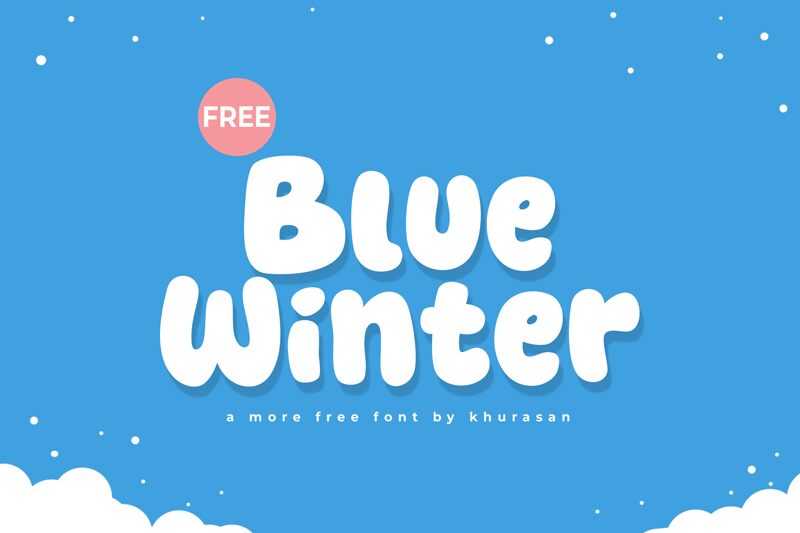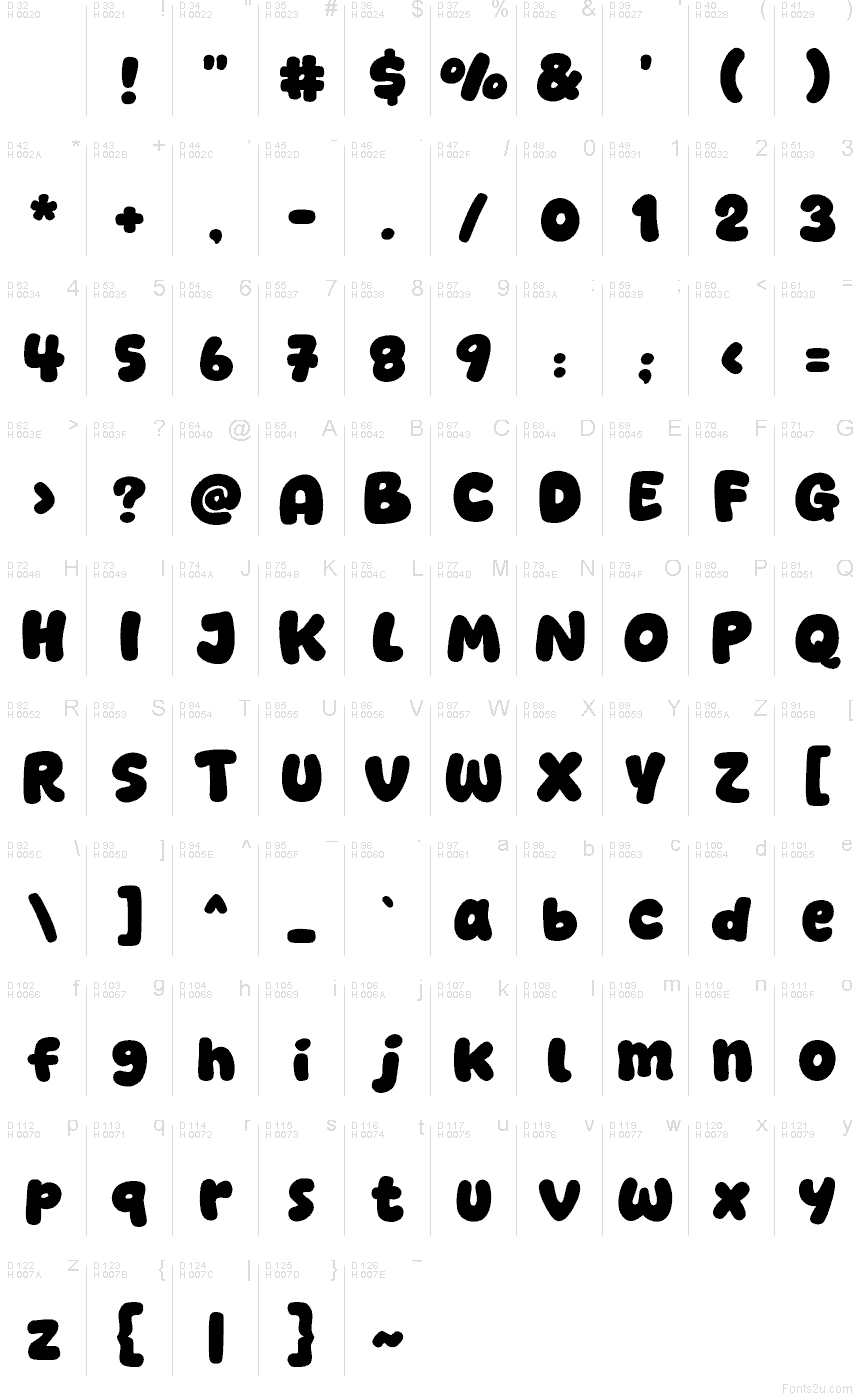
Blue Winter font by Khurasan is a free cartoon display typeface with bold, puffy letters that feel like they’ve been sculpted from fresh snow. The rounded shapes and tightly packed forms give it a cozy, marshmallow-like texture that instantly reads as playful and friendly. Its chunky curves hold up incredibly well at large sizes, so titles and wordmarks stay clear and full of character even from a distance.
Using Blue Winter, you can bring a warm, kid-friendly mood to holiday cards, children’s book covers, classroom posters, product packaging, social media graphics, and event flyers. This free font shines when you keep the palette bright and icy, then pair it with a simple sans serif for body copy. Set it large, give it room to breathe, and let those bubbly silhouettes do the storytelling.